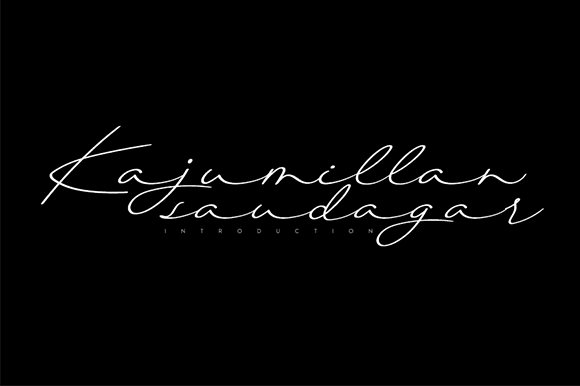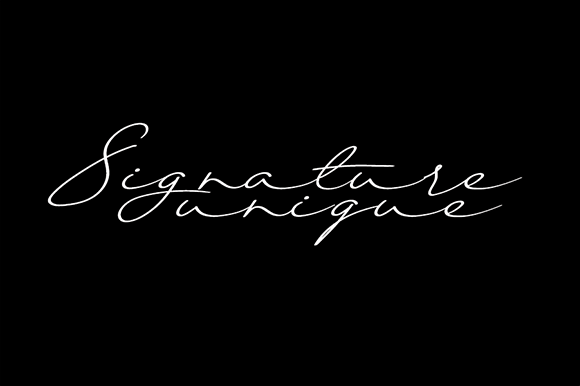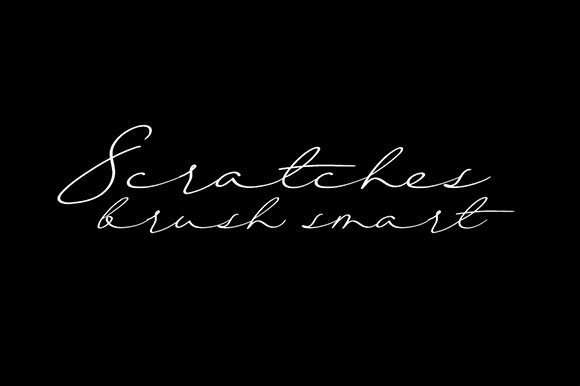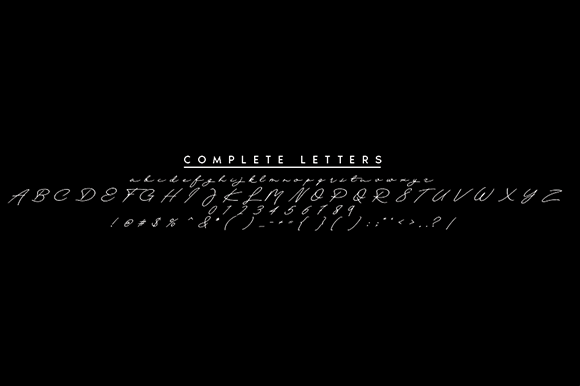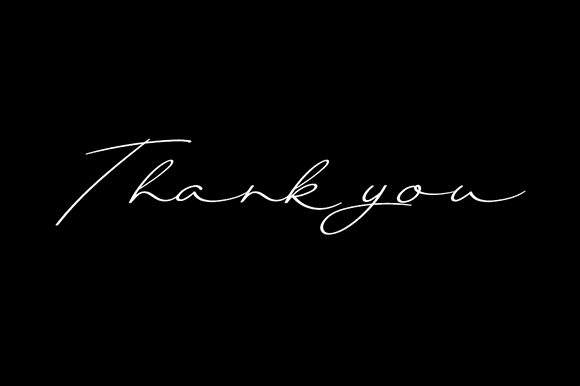
Kajumillan Saudagar Font
About Kajumillan Saudagar Font
Kajumillan Saudagar is a flowing handwritten font, described by an elegant touch, perfect for your favorite projects. Fall in love with its incredibly distinct and timeless style and use it to create spectacular designs!